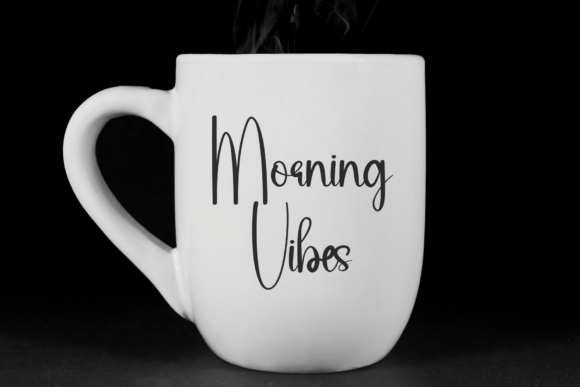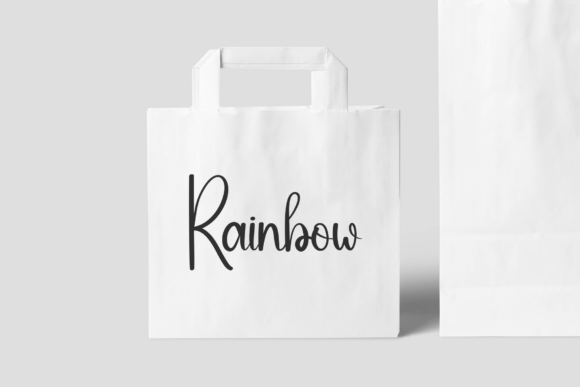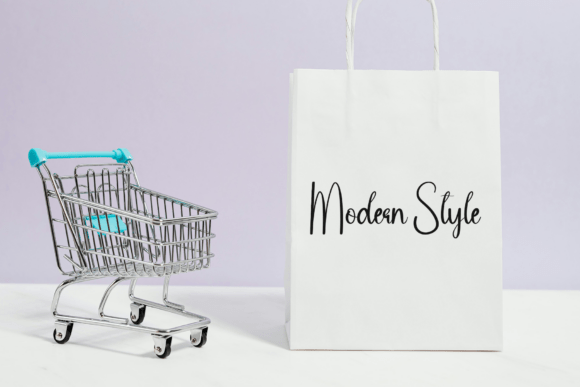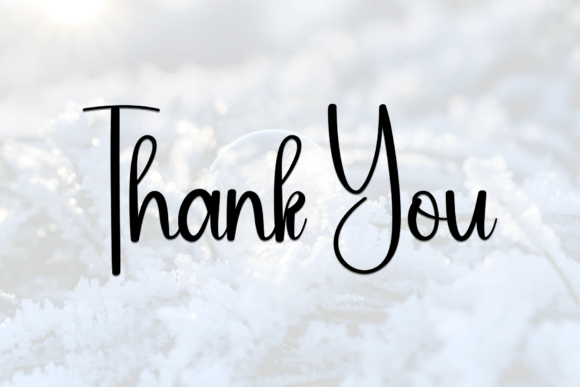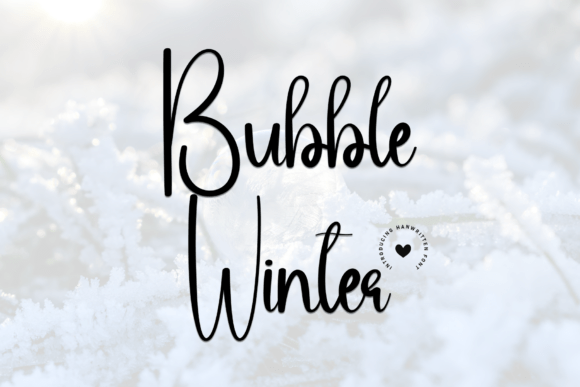
Bubble Winter Font: Add a Cozy Accent to Your Designs
Are you looking for a font that can add a touch of warmth and coziness to your design projects? Look no further than the Bubble Winter Font! This sweet and beautiful handwritten font is perfect for designers and crafters who want to create unique and eye-catching designs.
What Makes Bubble Winter Font Special?
Bubble Winter Font is a handwritten font that features characters that dance along the baseline, giving it a playful and whimsical feel. The font’s unique design makes it perfect for adding a cozy accent to any design project, from holiday cards and invitations to branding and packaging.
Key Features of Bubble Winter Font
- Sweet and Beautiful Design: Bubble Winter Font has a sweet and beautiful design that is perfect for creating cozy and inviting designs.
- Handwritten Style: The font’s handwritten style gives it a personal and unique touch that is perfect for adding a human element to your designs.
- Characters that Dance Along the Baseline: The font’s characters dance along the baseline, giving it a playful and whimsical feel that is perfect for creating eye-catching designs.
- Cozy Accent: Bubble Winter Font is perfect for adding a cozy accent to any design project, from holiday cards and invitations to branding and packaging.
Uses of Bubble Winter Font
Bubble Winter Font is a versatile font that can be used for a variety of design projects, including:
- Holiday Cards and Invitations: The font’s cozy and inviting design makes it perfect for creating holiday cards and invitations.
- Branding and Packaging: Bubble Winter Font can be used to add a touch of warmth and coziness to branding and packaging designs.
- Social Media Graphics: The font’s playful and whimsical design makes it perfect for creating social media graphics that stand out.
- Blog and Website Design: Bubble Winter Font can be used to add a touch of personality to blog and website designs.
Tips for Using Bubble Winter Font
Here are some tips for using Bubble Winter Font in your design projects:
- Pair it with Other Fonts: Bubble Winter Font can be paired with other fonts to create a unique and eye-catching design.
- Use it for Headings and Titles: The font’s playful and whimsical design makes it perfect for use in headings and titles.
- Add it to Your Design Toolkit: Bubble Winter Font is a versatile font that can be used for a variety of design projects, so be sure to add it to your design toolkit.
Bubble Winter Font is a sweet and beautiful handwritten font that is perfect for designers and crafters who want to create unique and eye-catching designs. With its playful and whimsical design, this font is perfect for adding a cozy accent to any design project. Whether you’re creating holiday cards and invitations, branding and packaging, or social media graphics, Bubble Winter Font is a versatile font that is sure to become a favorite in your design toolkit.